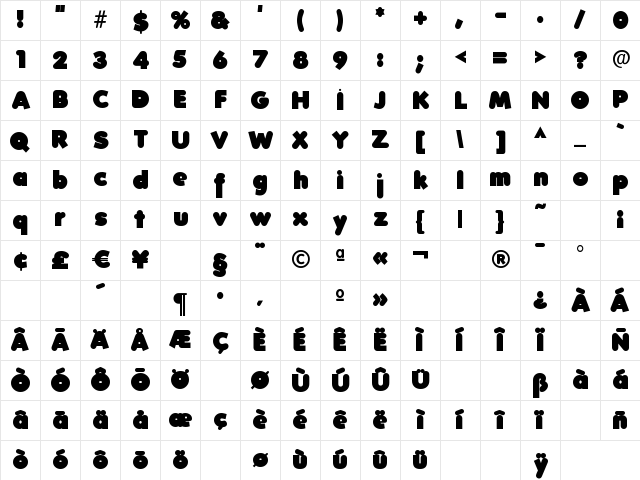
Complete FolksXX Heavy glyph index. Displaying only characters natively supported by FolksXX Heavy font.
FolksXX is a composed and adaptable typeface that performs quietly and consistently across a wide range of design contexts.